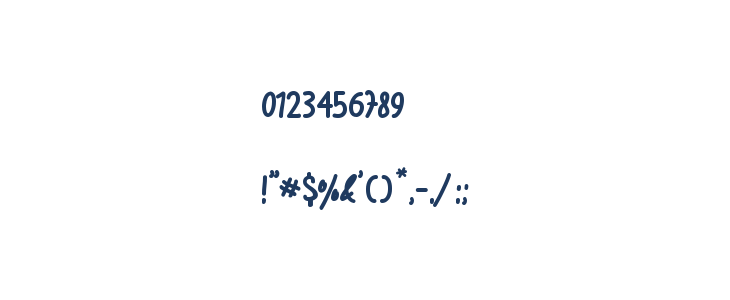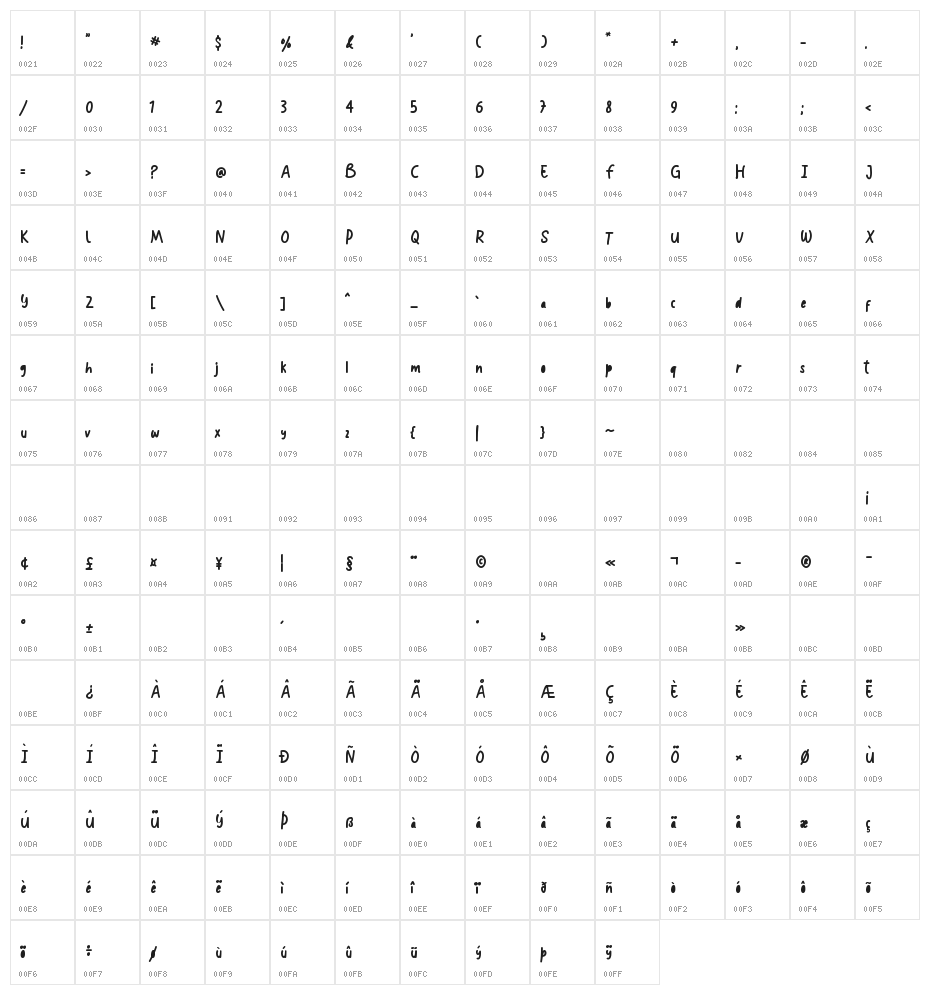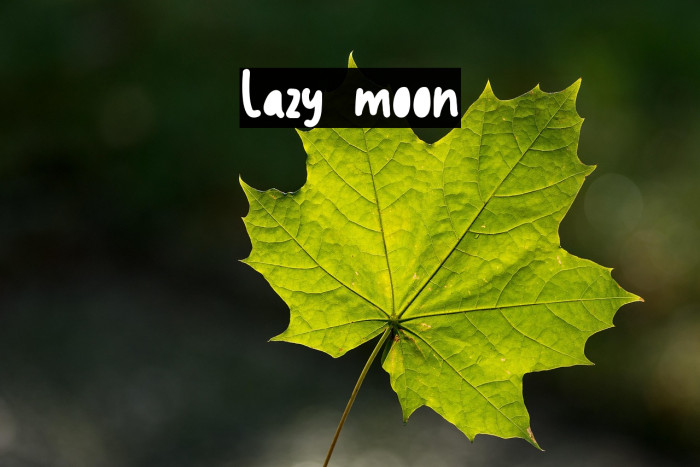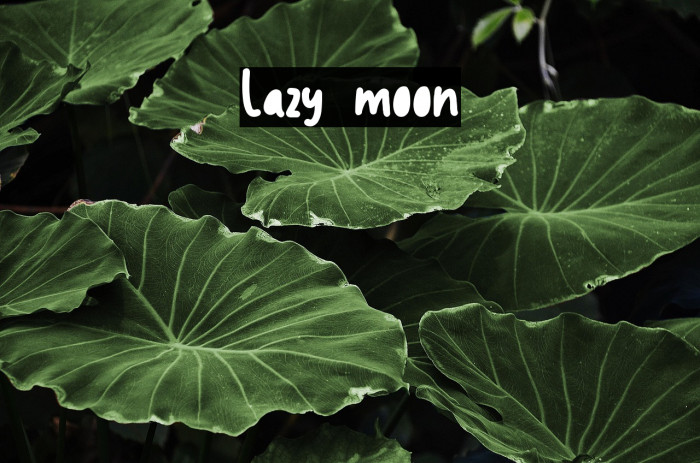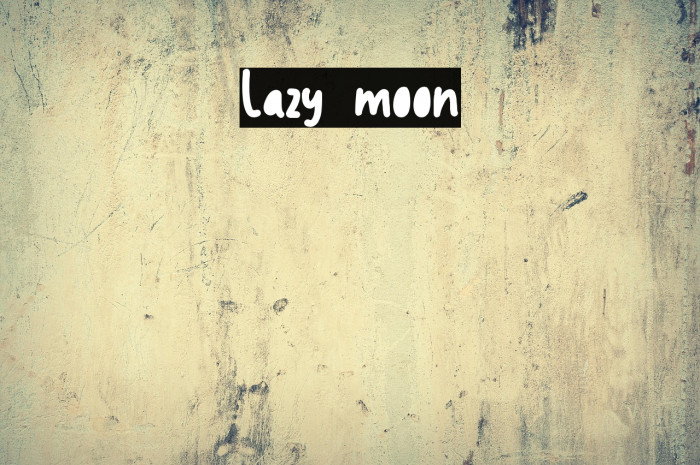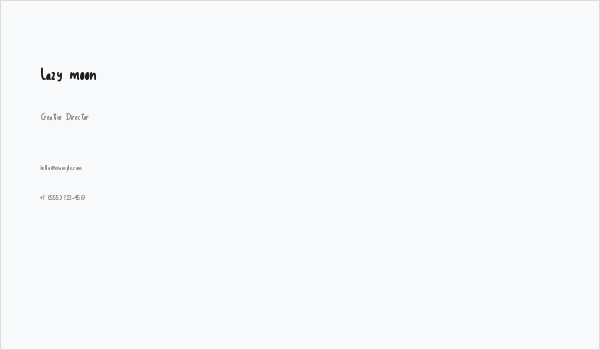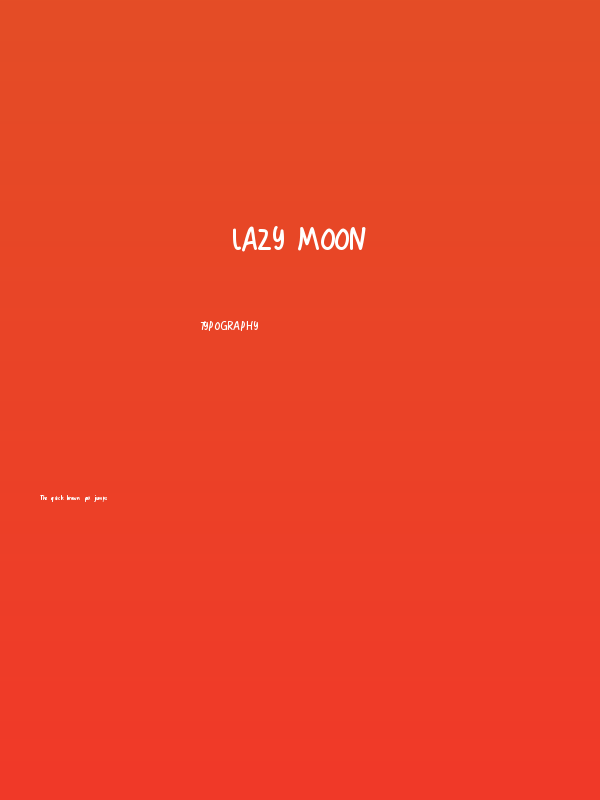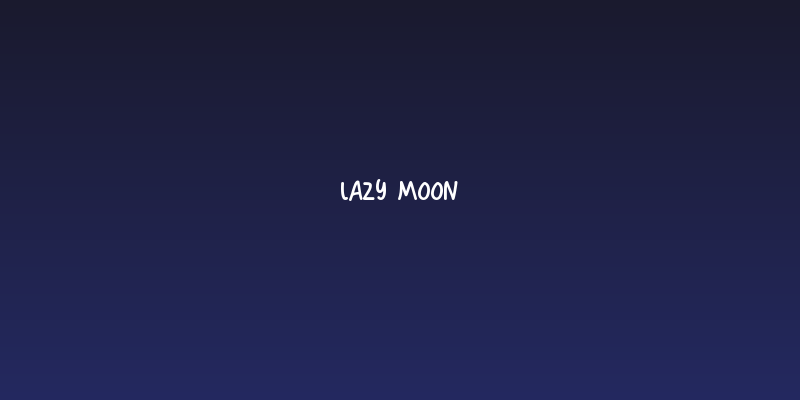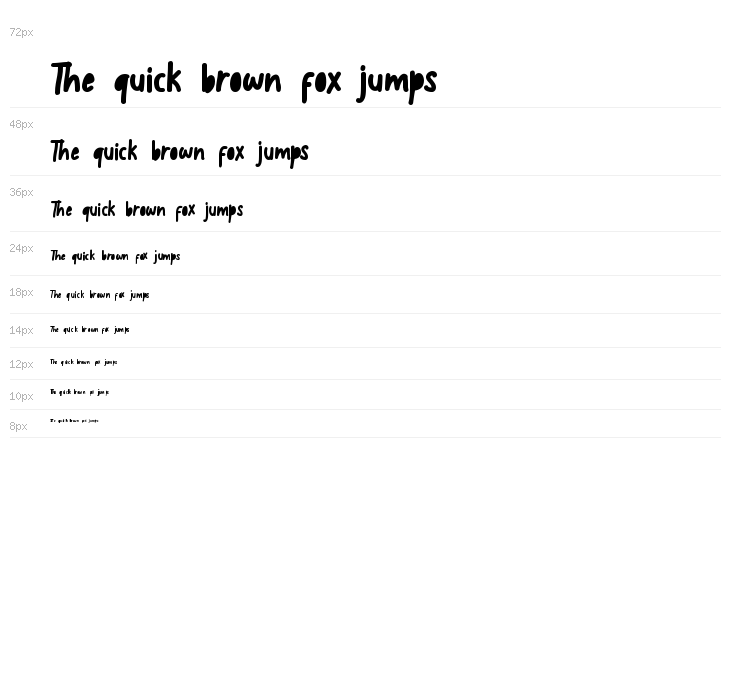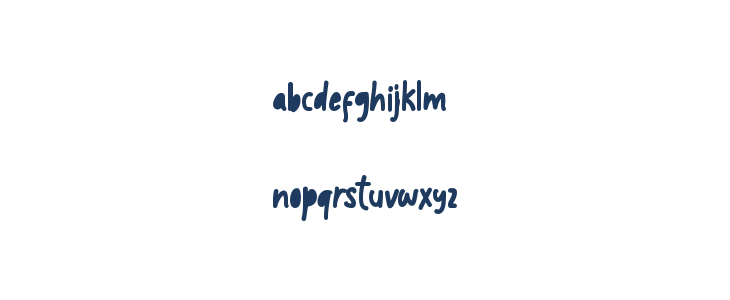
Lazy moon Font
Lazy moon Description
This font features a playful and casual handwritten style, characterized by its rounded and slightly irregular letterforms. The uppercase letters are bold and prominent, while the lowercase letters maintain a consistent flow with a touch of whimsy. The numbers are clear and legible, matching the overall friendly aesthetic. Special characters are well-integrated, maintaining the font's cohesive look. This style is approachable and informal, making it suitable for projects that require a personal touch.
| Use Case | Logos, Headlines, Informal Text |
| Proposed Projects | Ideal for greeting cards, children's books, playful branding, and social media graphics. |